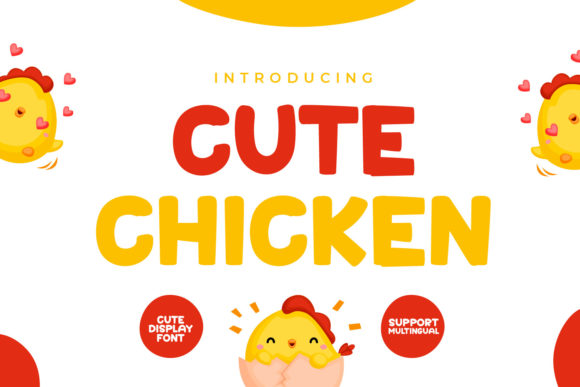
Hey, bold and beautiful font lovers!
Let us introduce you to our heart-melting addition to the font family: Cute Chicken Font – the ultimate display font that will tickle your creative bone and make your designs dance with delight!
We know you're on a quest for fonts that ignite the imagination, fonts that evoke joy, laughter, and pure unadulterated happiness. That's why we've crafted this adorable font, meticulously designed to bring a smile to your face and add a touch of cheerful charm to your creative projects.
Picture this: your designs adorned with Cute Chicken Font, exuding a sense of lighthearted playfulness and innocent wonder. It's like stepping into a world where every letter is a tiny piece of sunshine, spreading warmth and happiness wherever it goes.
We've designed Cute Chicken Font with a playful personality, making it the ideal choice for any project that calls for a touch of fun and whimsy. Whether you're creating invitations for a baby shower, designing posters for a school project, or simply adding a dash of cuteness to your social media posts, Cute Chicken Font has got you covered.
Its thick, bubbly letters are like fluffy clouds, inviting you to dive into a world of imagination and creativity. Each character dances across the page, carrying with it a contagious spirit of joy and wonderment.
So, why settle for ordinary fonts when you can have extraordinary? Download Cute Chicken Font today and let your designs soar to new heights of cuteness and charm. Your audience will be smitten by its playful innocence and irresistible allure.
Join the chorus of happy font enthusiasts and download Cute Chicken Font today. Let your designs shine with a cuteness that will melt hearts and spread smiles everywhere it goes!